This month, the selection leans towards chunky typefaces, there are some sophisticated takes on retro styles, and some high-contrast experimental designs.
TT Autonomous
TT Autonomous was inspired by a trip in an electric taxi. It’s a wide sans-serif with angular counters and rounded outer curves that strike a perfect balance between mechanical and organic. There are 32 styles in the family, and a variable font is available.
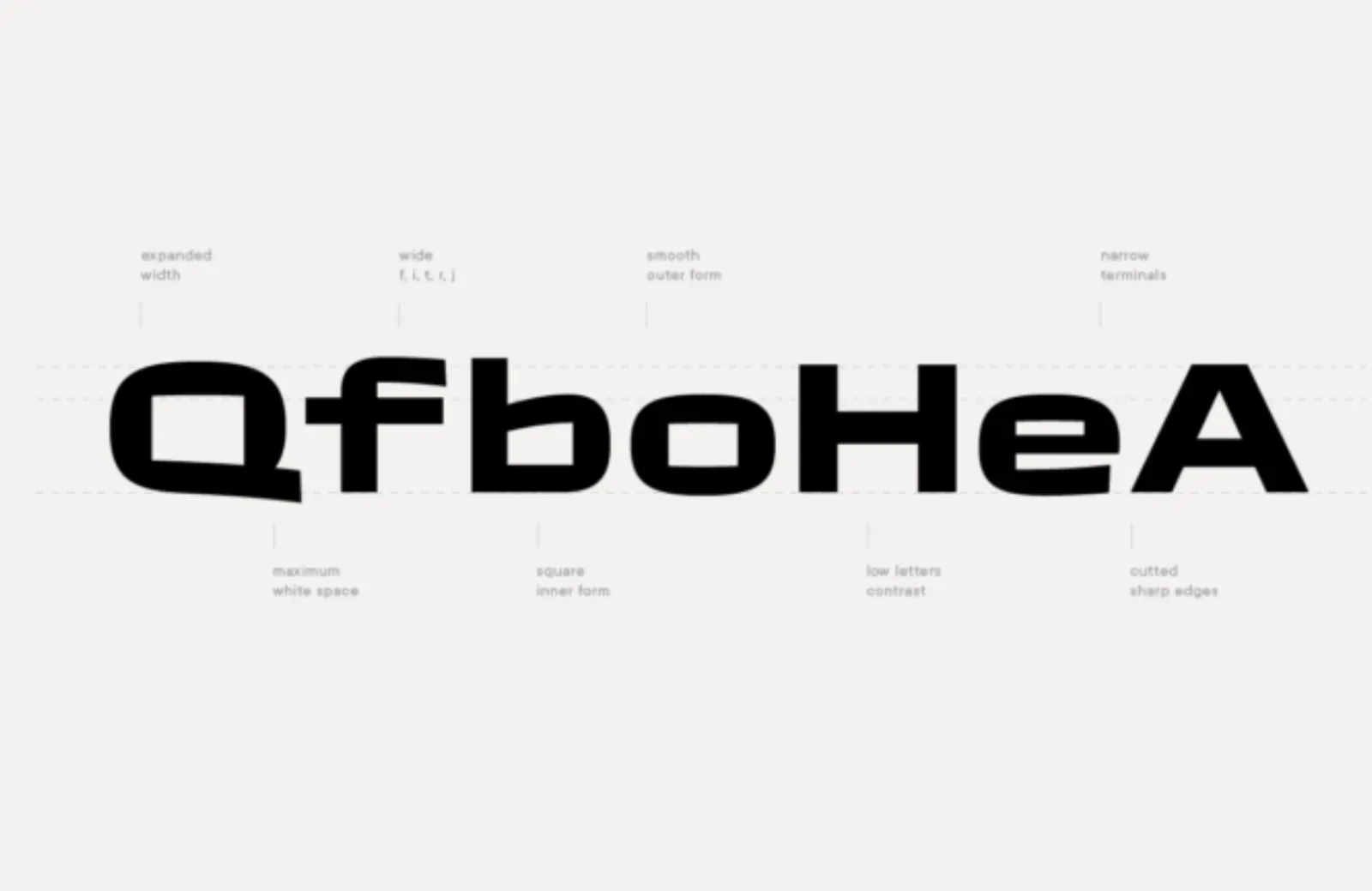
Fat
Fat looks precisely as you would expect: chunky letterforms with fine lines for counters that help define the letterforms. It’s a characterful and unforgettable display font that would be great for use in a logo.
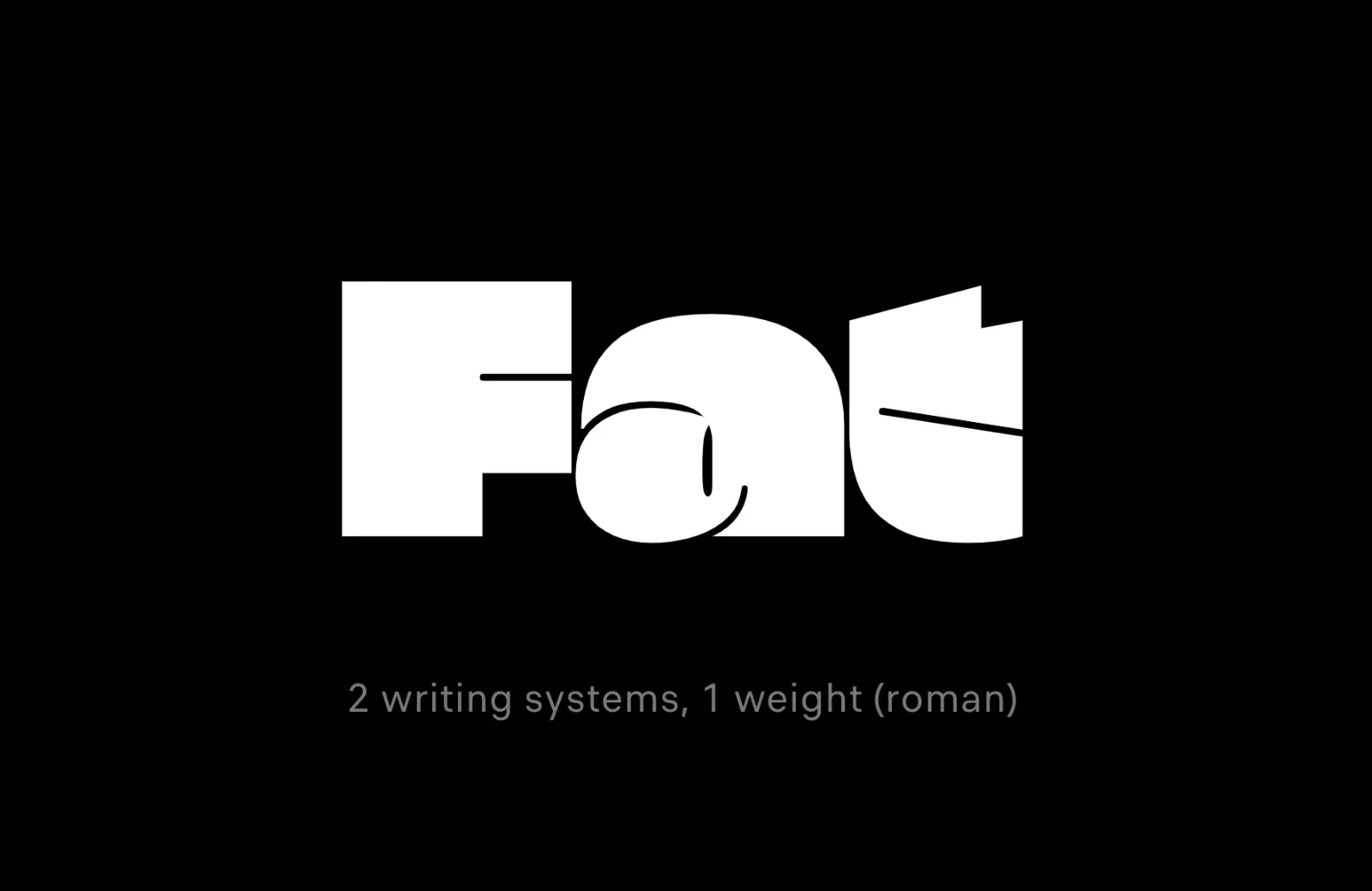
Hanae
Hanae is an elegant serif font named for Hanae Mori — the first Asian woman to join a Parisian Haute-Couture house. It has a large x-height and classic proportions, making it perfect for long-running text. There are currently just Regular and Light weights available.
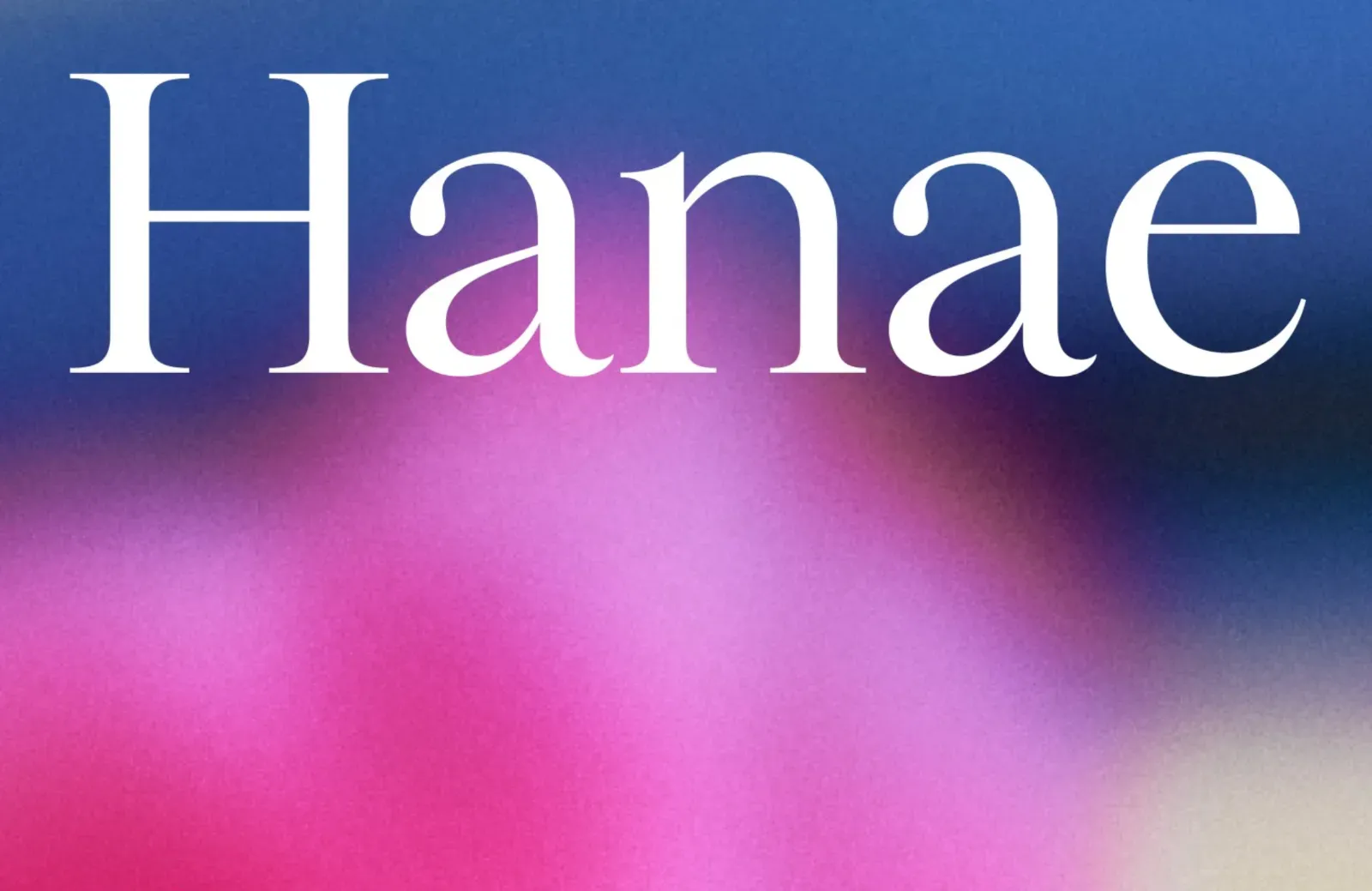
Thanatos
Thanatos draws inspiration from woodcuts, as evidenced by the sharp corners and irregular strokes as if the letters had been gouged out of the screen. It’s excellent at display sizes but also surprisingly effective at smaller sizes where the color is nicely balanced.
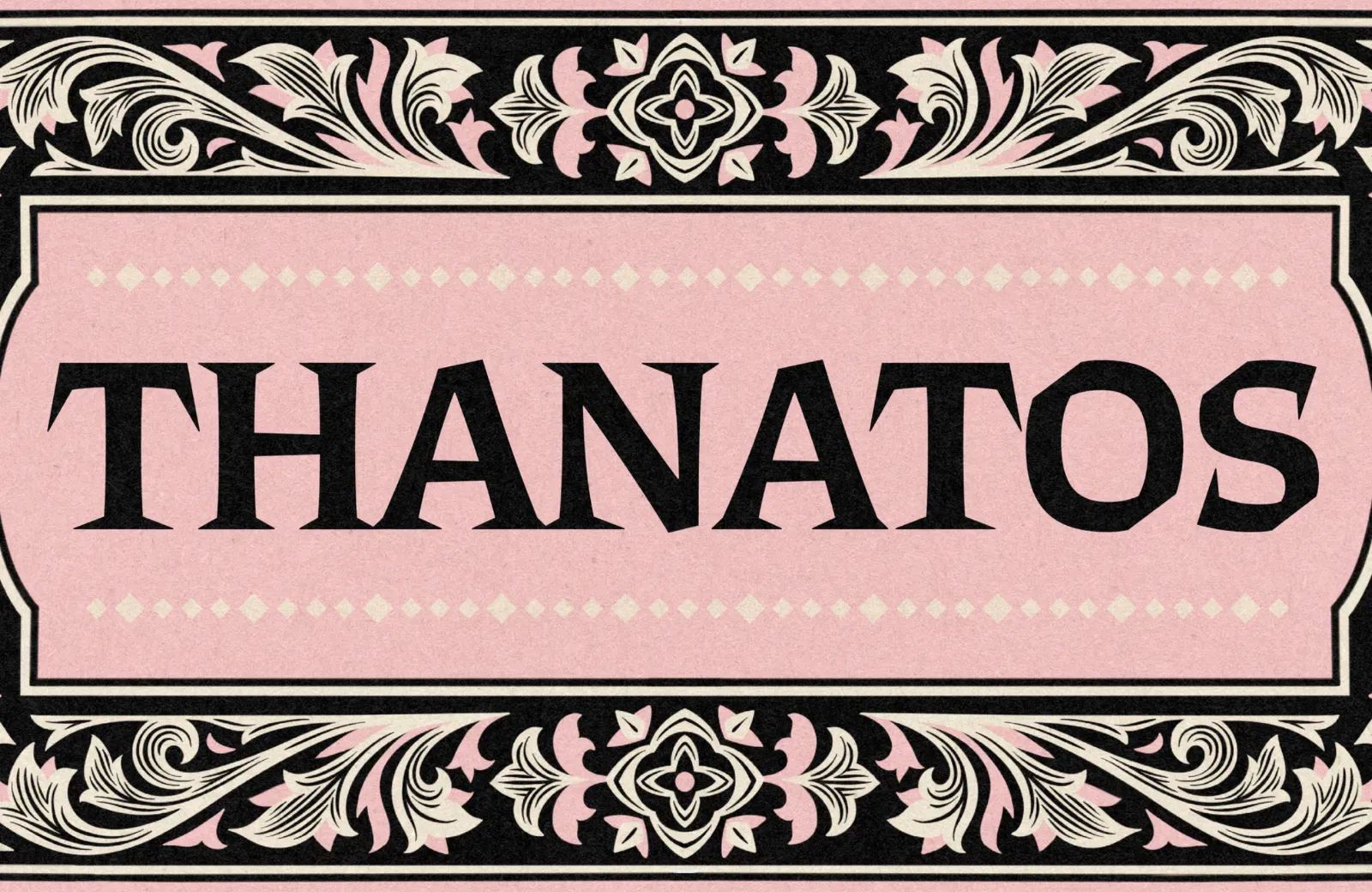
Abalos
Abalos is a futuristic vision of what retro looks like. Technically it’s a serif, with tiny little flares on the end of its strokes, but it has a lot of the characteristics of a sans, and some glyphs feel distinctly script-like — the ‘s,’ for example.
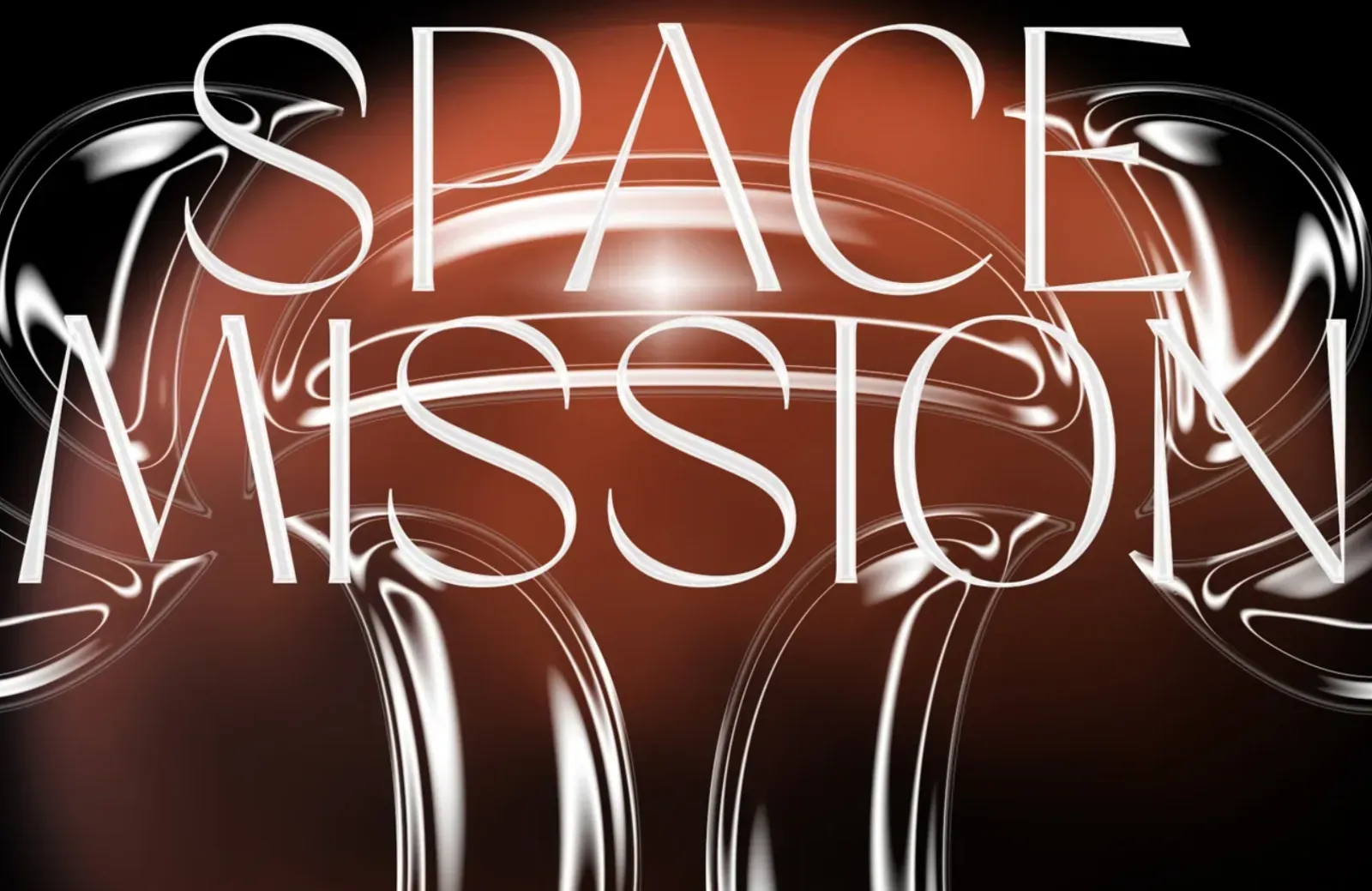
Indigo Sky
Indigo Sky is an unapologetically retro font leaning into psychedelia. It’s designed for display sizes and includes plenty of swash alternates and ligatures for interesting word shapes. It’s a good fit for editorial design.
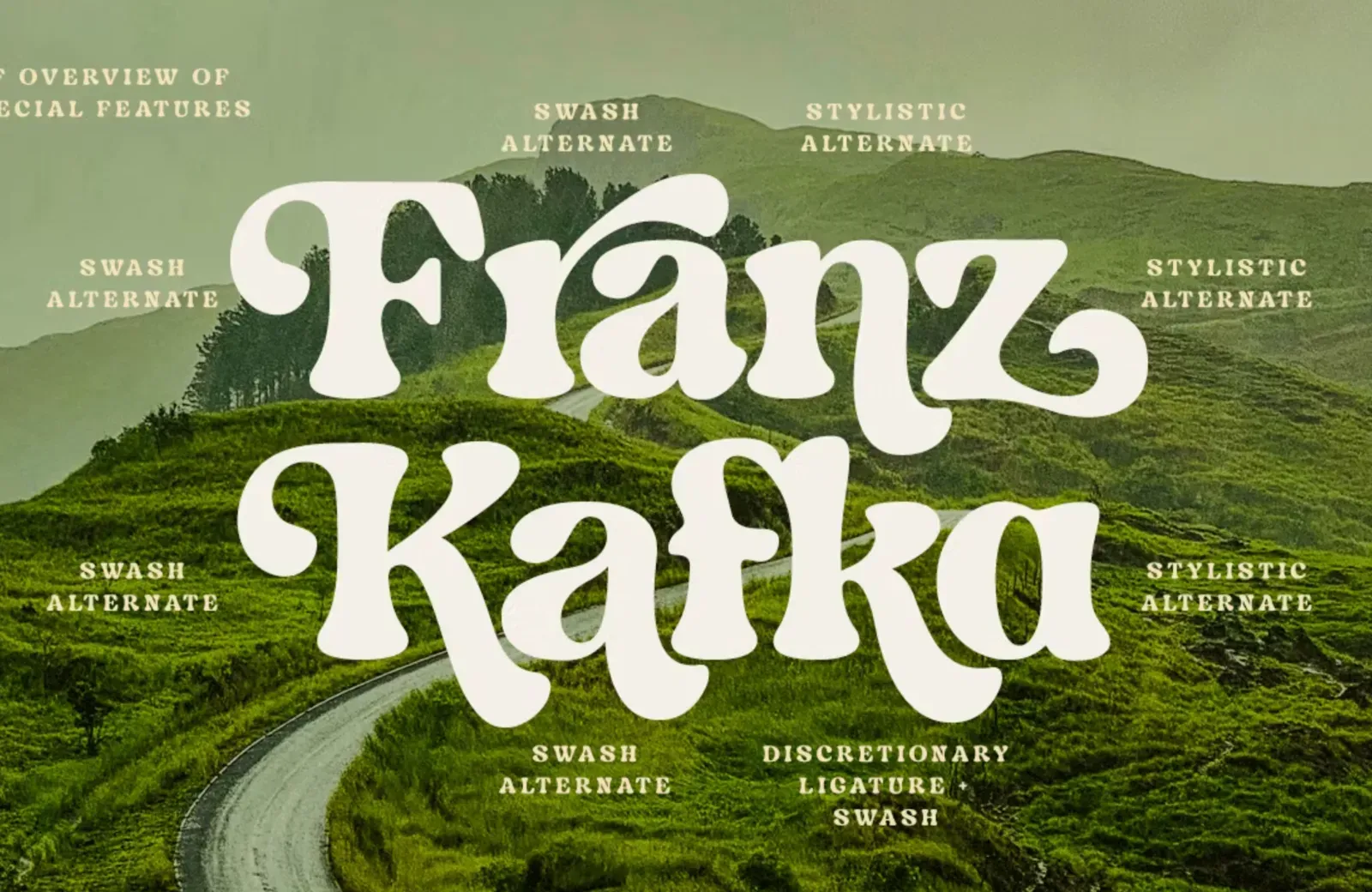
Tongari
Tongari is an excellent serif font family with a text version and a display version with increased contrast. It has a particularly well-designed ampersand, which makes it a useful option for branding.
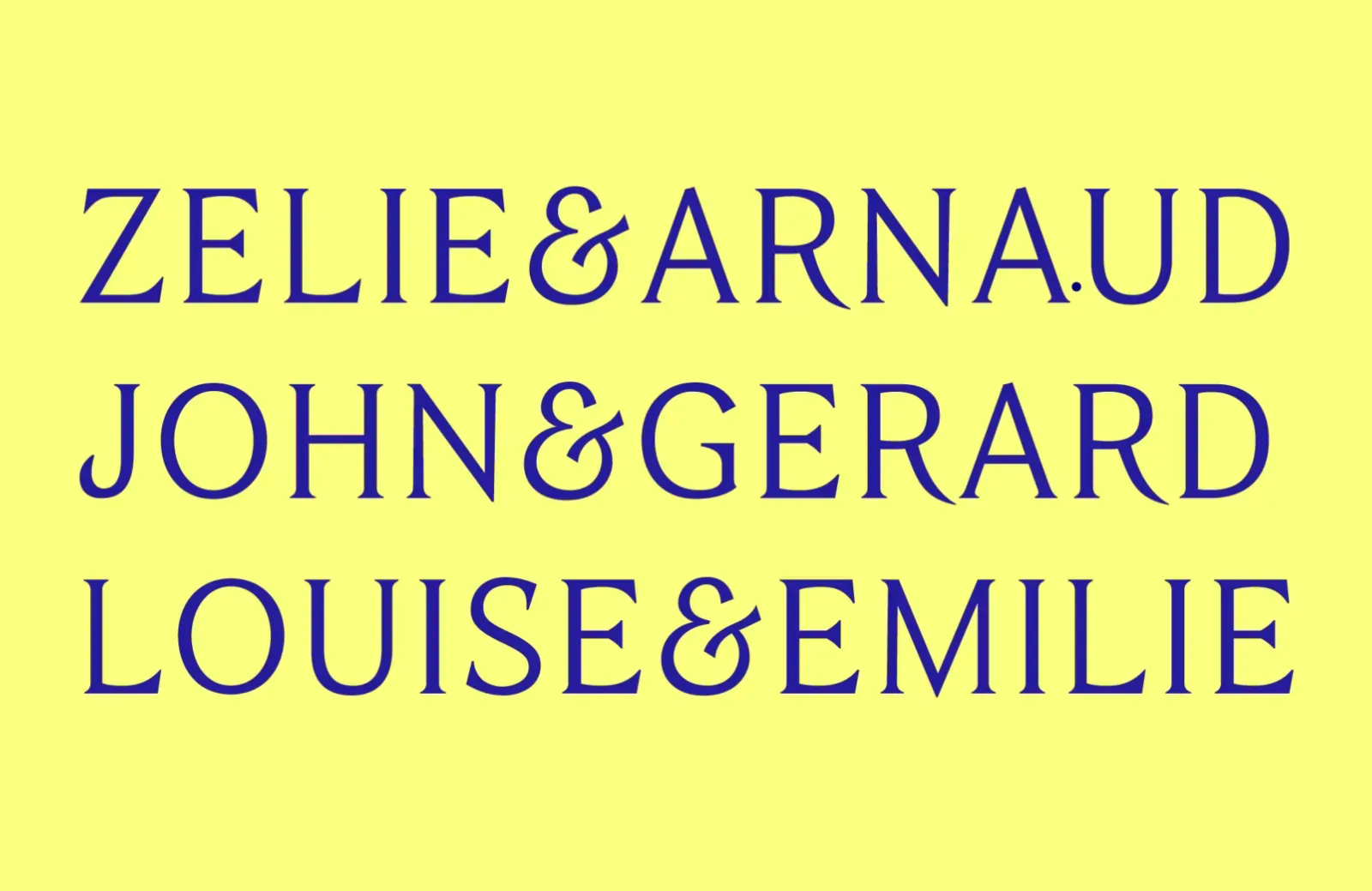
ZT Vollun
ZT Vollun is an experimental typeface in seven weights. The lightest weight, Thin, has very fine lines, but only in certain strokes. The heaviest weight, bold, has consistent strokes. The result is a range of contrasts instead of weights.
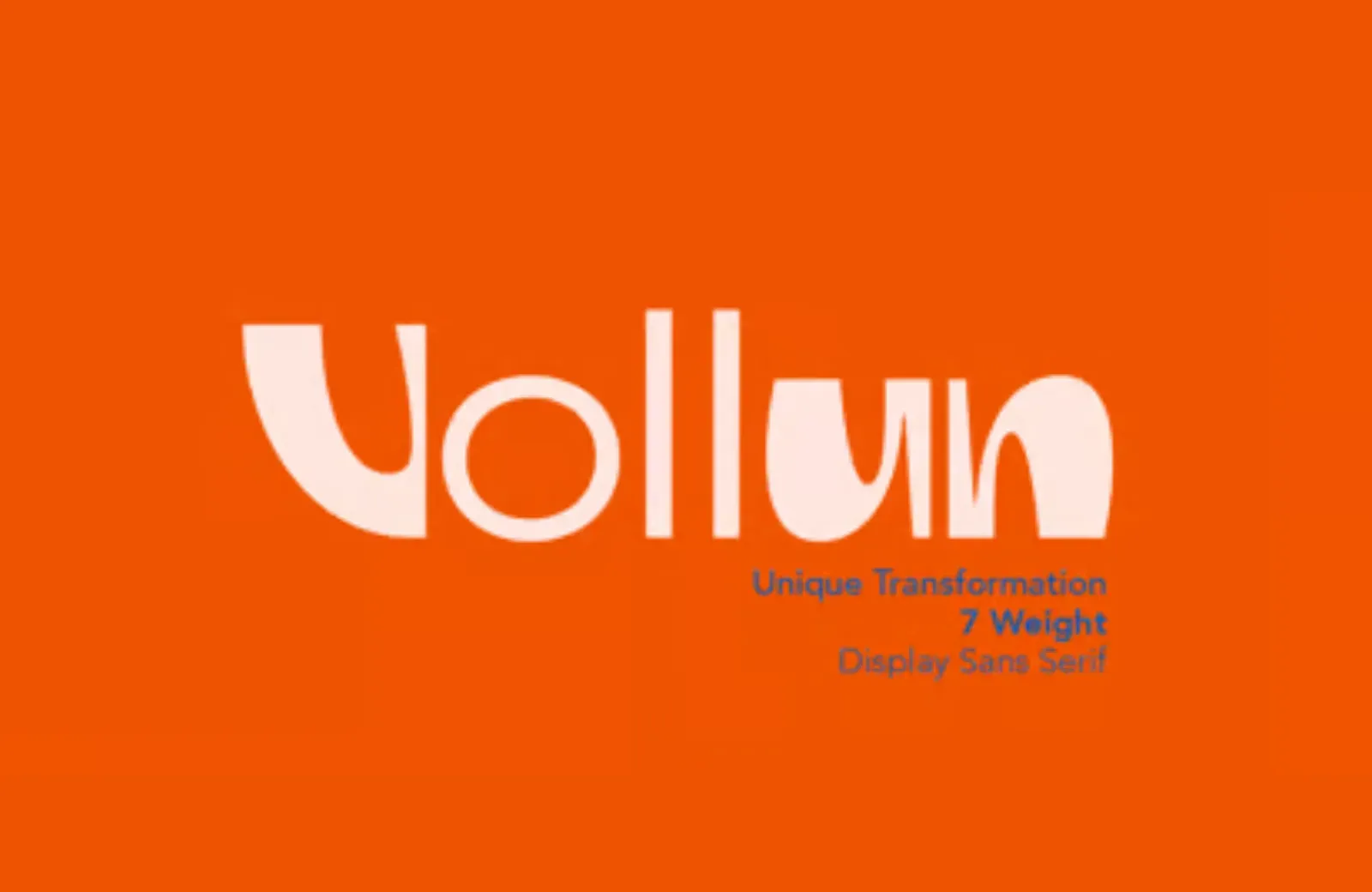
Jobim
Jobim takes Vendome as its starting point but takes its own path with a simpler, more contemporary approach. The glyphs are narrow, with a solid rhythm. It’s intended for use at medium–large sizes.
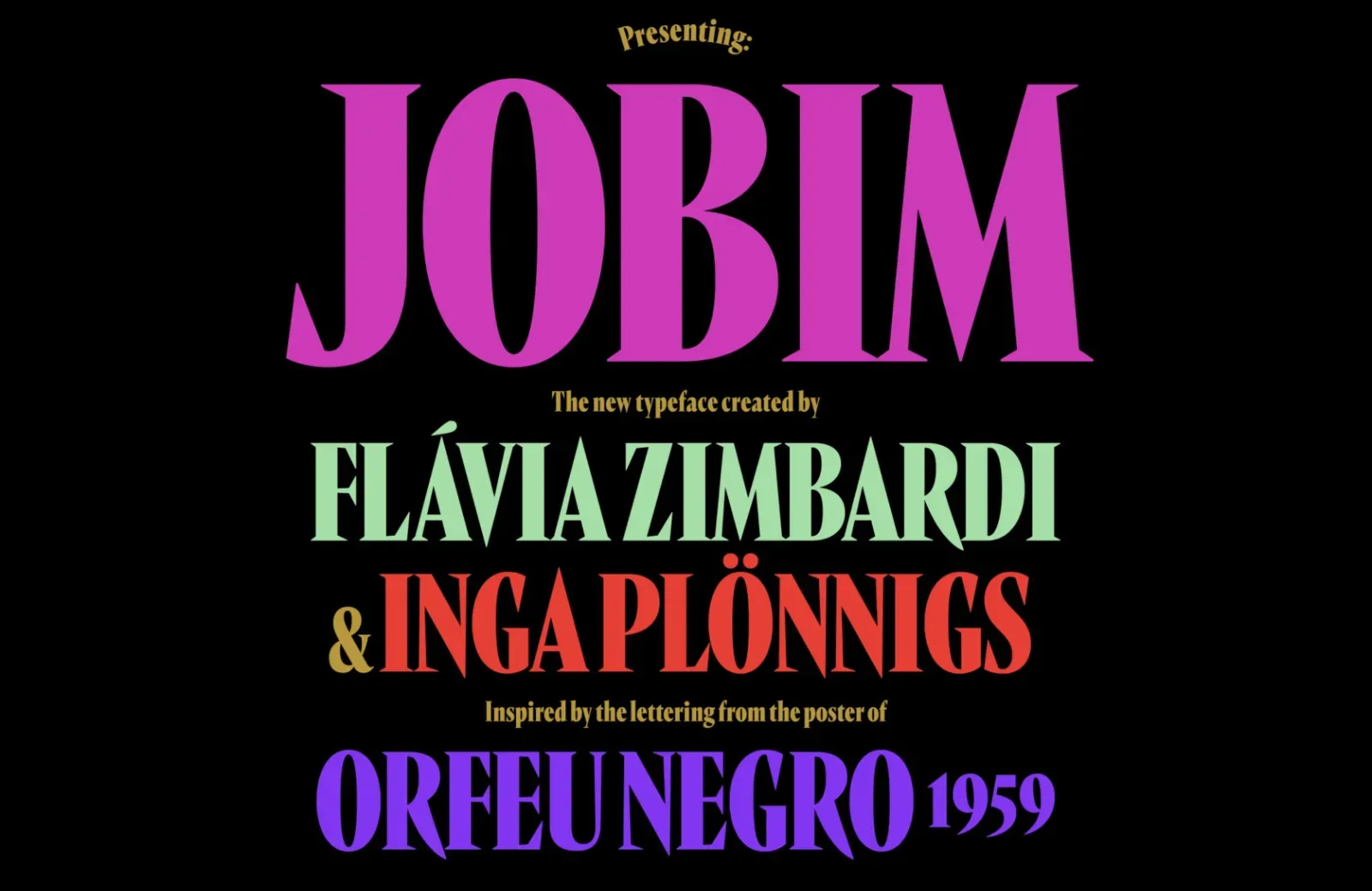
Gigafly
Gigafly is a fantastic font family that combines thick strokes and extremely high contrast to create the effect of a stencil font. It’s available in Headline, Display, and Poster styles, and a variable font version is available.
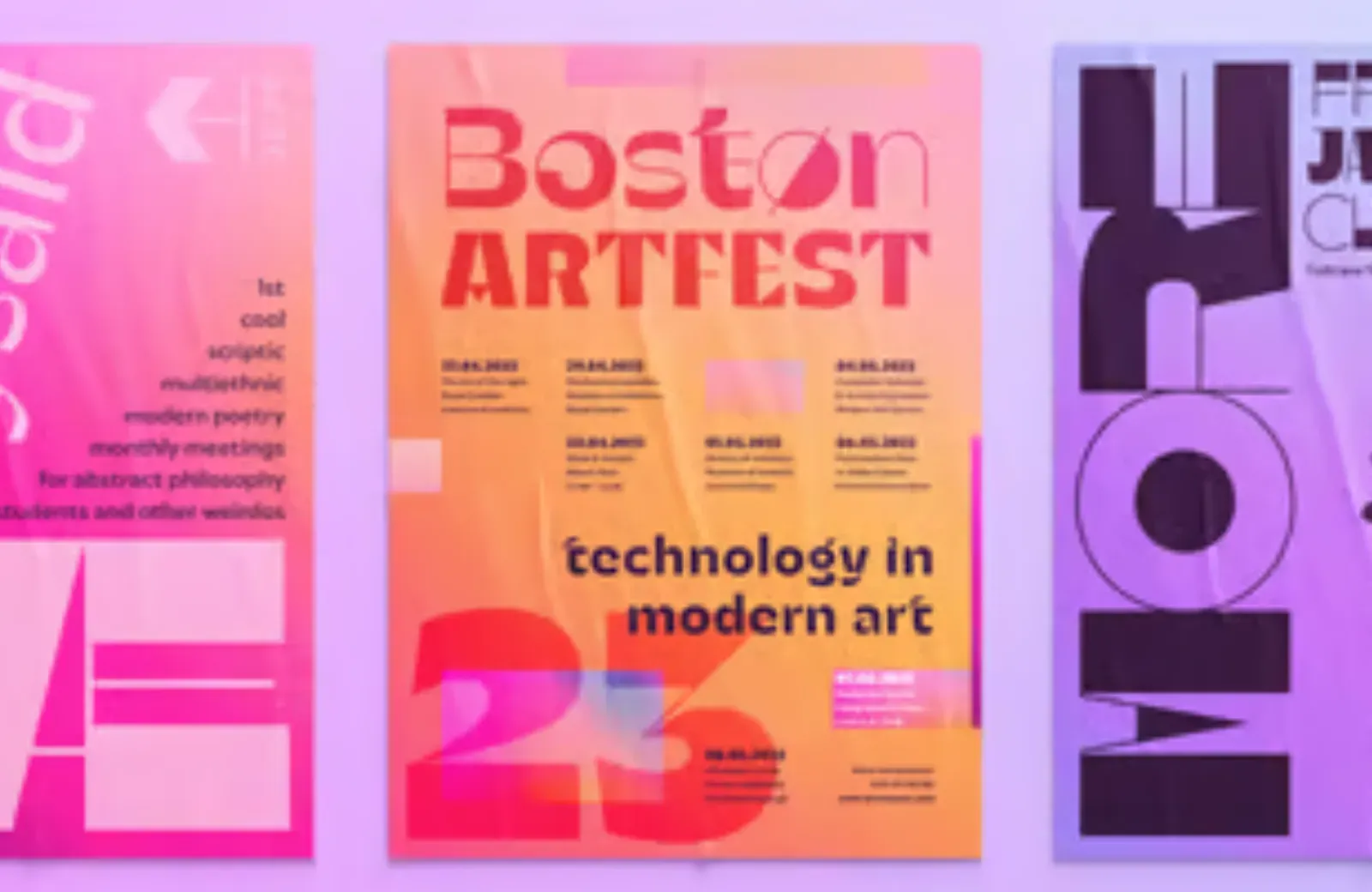
Cardillac Text
Cardillac Text is a high-class serif that will give your running text an air of authority and quality. It features small caps, ligatures, lining figures, old-style figures, and scientific numerals. It’s the companion font to the higher-contrast Cardillac Family.
Solfa
Solfa is a narrow, bold sans that will be a big hit with anyone who still hovers their cursor over Impact in their font menu. Solfa is on the geometric end of sans-serifs with minimal optical corrections to create a no-nonsense aesthetic.
Mycena
Mycena is a graffiti inspired font for display use. Its bold, rounded forms are crying out to be doused in color. It’s uppercase only, with only one weight available, so definitely a display face. It would work great for some branding projects too.
Nusrat
Nusrat is a beautiful script font that adds something to a very crowded marketplace — script fonts are only marginally less common than geometric sans. It has been painstakingly constructed around linked strokes to create the impression of calligraphy.
Micro
Micro is a minimalist typeface with plenty of impact. It combines square and rounded finials to deliver character in a compact form. It’s great for UI design, where it remains readable at tiny sizes.